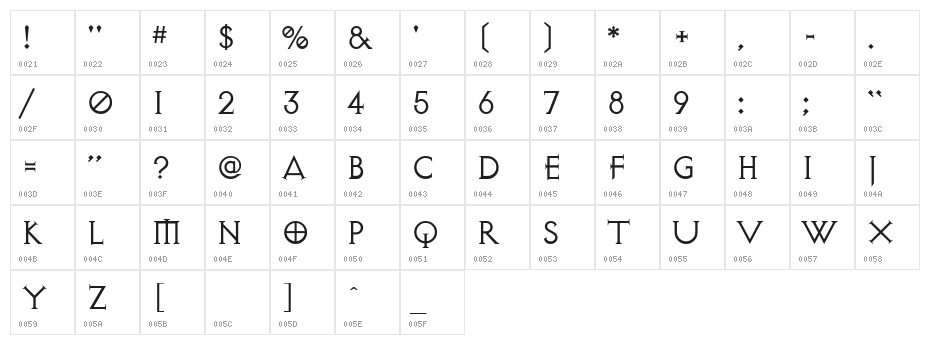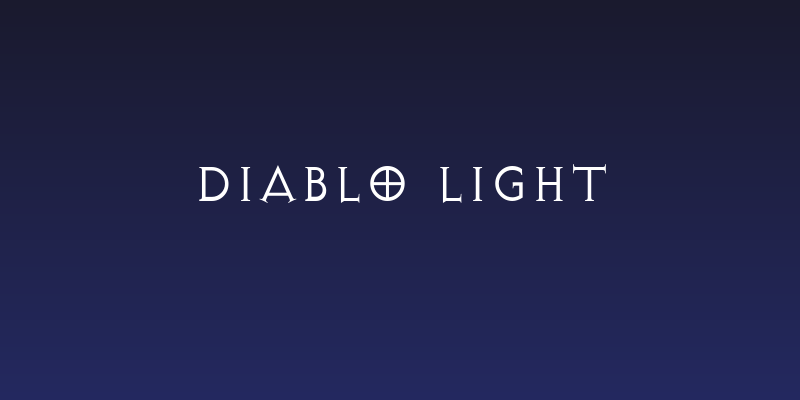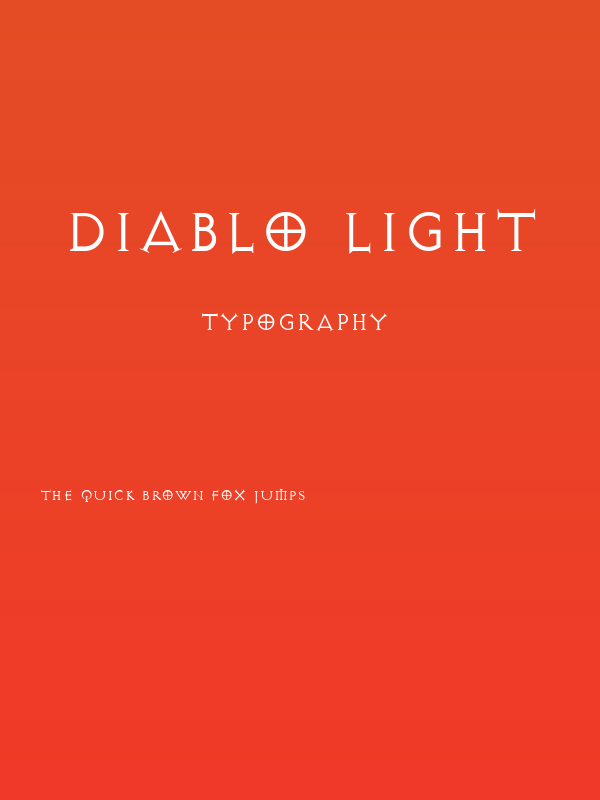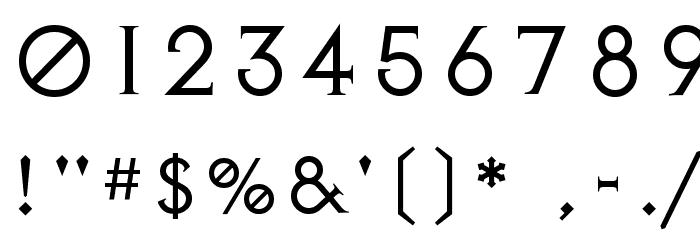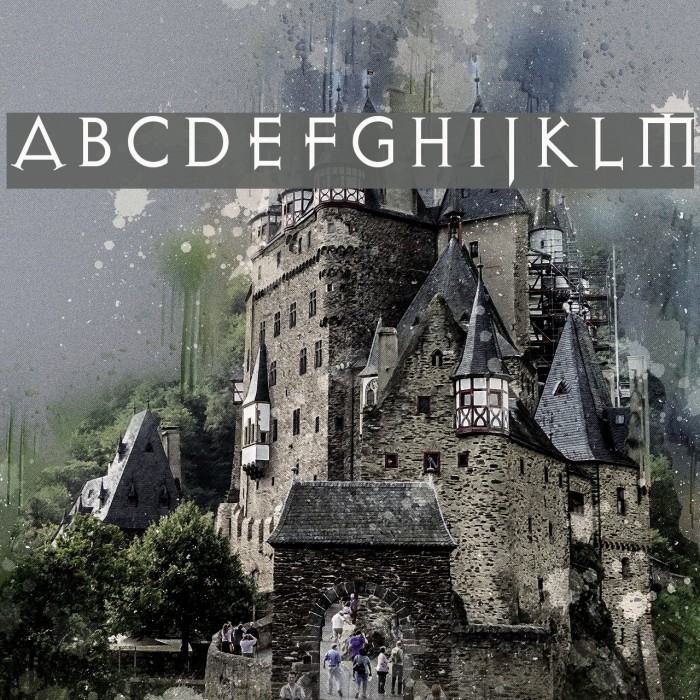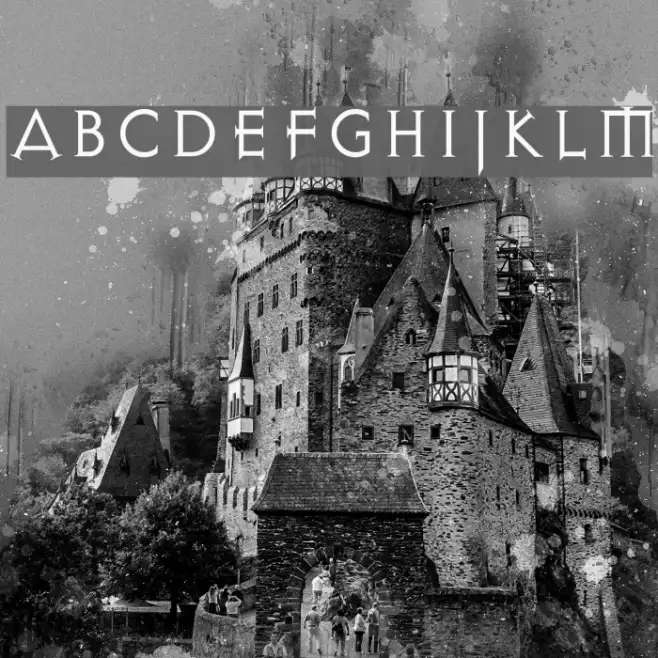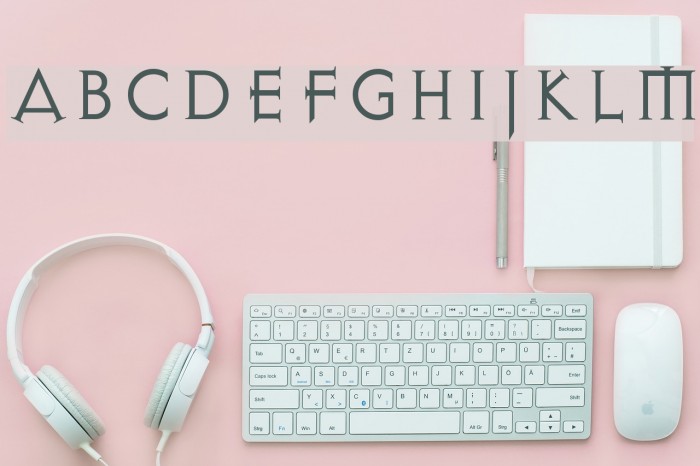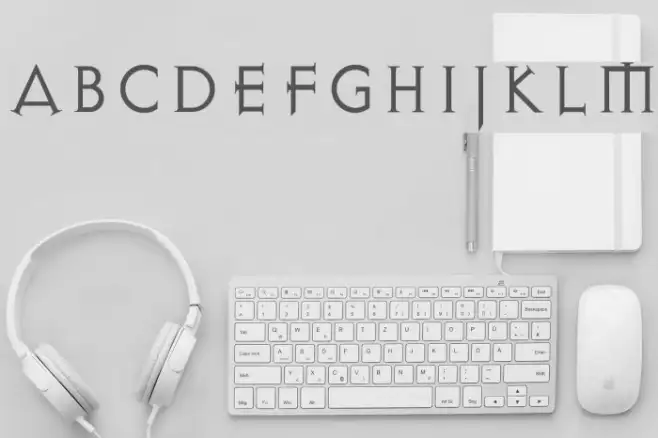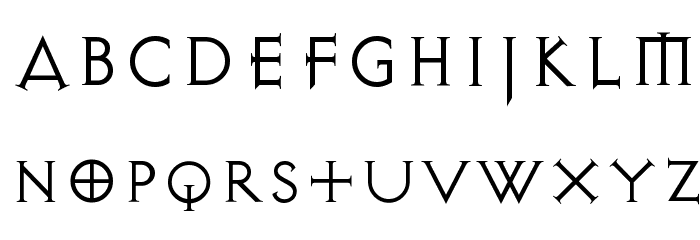
Diablo Light Font
Diablo Light Description
This font features a unique blend of modern and gothic elements, characterized by sharp, angular serifs and a distinct geometric influence. The uppercase letters are bold and commanding, with a particular emphasis on symmetry and balance. The lowercase letters maintain a consistent style, offering a cohesive look across different text sizes. Numbers and special characters are designed to complement the overall aesthetic, with a focus on clarity and readability. The font's design is both striking and versatile, making it suitable for a variety of creative applications.
| Overall Style | Modern Gothic |